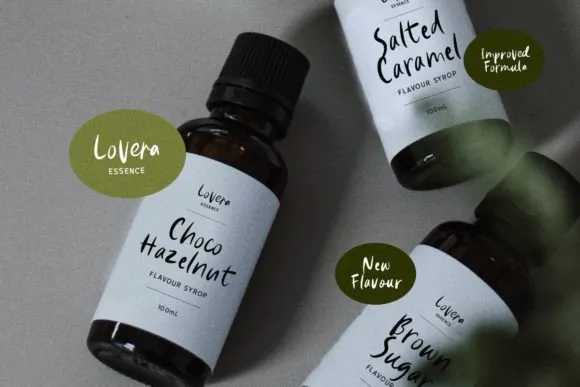
Natural Handwriting Font Design
Presenting Natural Handwriting Font Design an easygoing text style intended to carry a bit of credibility to your ventures.
With its finished brush look, this text style oozes a natural and close feel, permitting your plans to inspire a feeling of uniqueness and character.